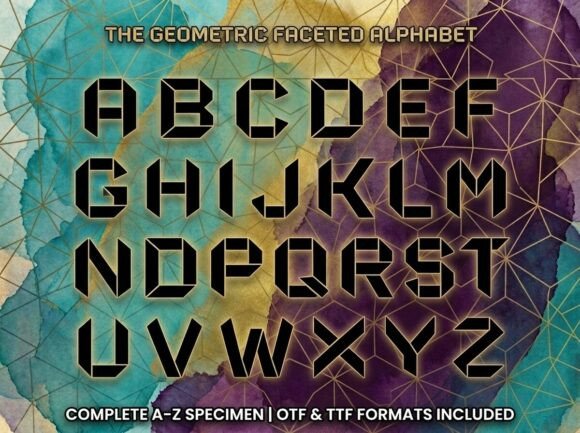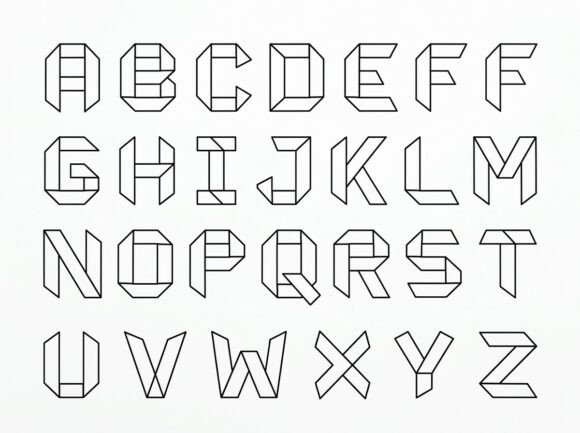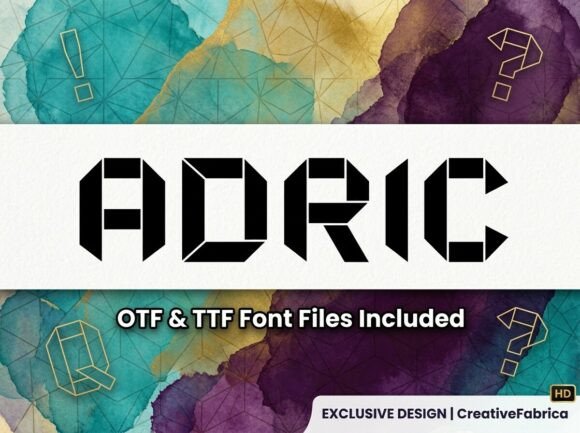
Unveiling Adric Font: The Epitome of Geometric Precision and Digital Minimalism
In the realm of typography, the intersection of architectural precision and digital minimalism is a coveted sweet spot, where form and function converge to create something truly remarkable. It is here that Adric Font makes its mark, a modern geometric display font that embodies the perfect blend of structural impact and aesthetic allure. Designed to turn heads and spark imagination, Adric is not just a typeface; it’s an experience, a statement of innovative design that beckons to be explored.
The Genesis of Adric: A Symphony of Angles and Silhouettes
Adric’s uniqueness lies in its meticulously crafted letterforms, distinguished by sharp, technical angles and a hollow, “folded” silhouette. This distinctive feature creates a mesmerizing 3D effect, setting Adric apart in the world of typography. Each character is a masterclass in geometric design, exuding a sense of rhythm and technicality that is both captivating and inspiring. Whether you’re a designer seeking to elevate a brand’s visual identity or a craftsperson looking for the perfect typographic voice for your project, Adric promises to deliver a sense of brilliant precision and unyielding creative power.
Applications of Adric: Where Precision Meets Creativity
The versatility of Adric is one of its most compelling attributes. Its rhythmic, technical aesthetic makes it an extraordinary choice for a variety of applications, including:
• Innovative Tech Logos: Adric’s futuristic appeal and geometric precision make it an ideal choice for tech companies looking to carve out a cutting-edge identity.
• Architectural Branding: For architects and design firms, Adric offers a typographic solution that echoes the structural rigor and aesthetic sophistication of their work.
• Futuristic Editorial Headers: Adric can transform any editorial content into a visually stunning experience, perfect for publications that aim to push the boundaries of digital storytelling.
• Minimalist Sci-Fi Posters: The font’s ability to evoke a sense of futurism and otherworldliness makes it a valuable asset for designers creating sci-fi themed artwork.
Adric in Design: Achieving High-Concept and Artisanal Goals
Adric’s adaptability is key to its appeal. It seamlessly bridges the gap between high-concept digital looks and raw, artisanal geometric styles. For those aiming to create a sophisticated, forward-thinking brand image or digital content, Adric provides the tools to achieve a sleek, high-tech appearance. Conversely, its artisanal charm can also bring a sense of authenticity and handcrafted quality to projects that celebrate the beauty of geometric forms.
Why Adric Stands Out: A Typeface of Distinction
In a sea of typefaces, Adric stands out for several reasons:
• Unique Aesthetic: The combination of sharp angles and hollow silhouettes creates a look that is instantly recognizable.
• Versatility: Adric’s range of applications makes it a valuable addition to any designer’s toolkit.
• Precision and Power: It embodies a sense of precision and creative power, capable of elevating the visual impact of any project.
Conclusion: The Future of Typography with Adric
Adric Font represents a significant leap forward in typographic design, offering a fresh perspective that is both geometrically precise and digitally minimalist. Its unique blend of aesthetic appeal and functional versatility positions it as a go-to typeface for designers and crafters looking to make a statement. Whether you’re embarking on a new brand identity, crafting a digital publication, or creating art that pushes the boundaries of design, Adric invites you to explore new dimensions of typographic expression. With Adric, the possibilities are endless, and the future of design looks brighter than ever.